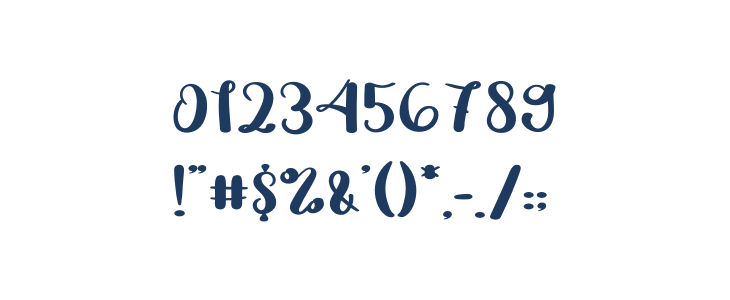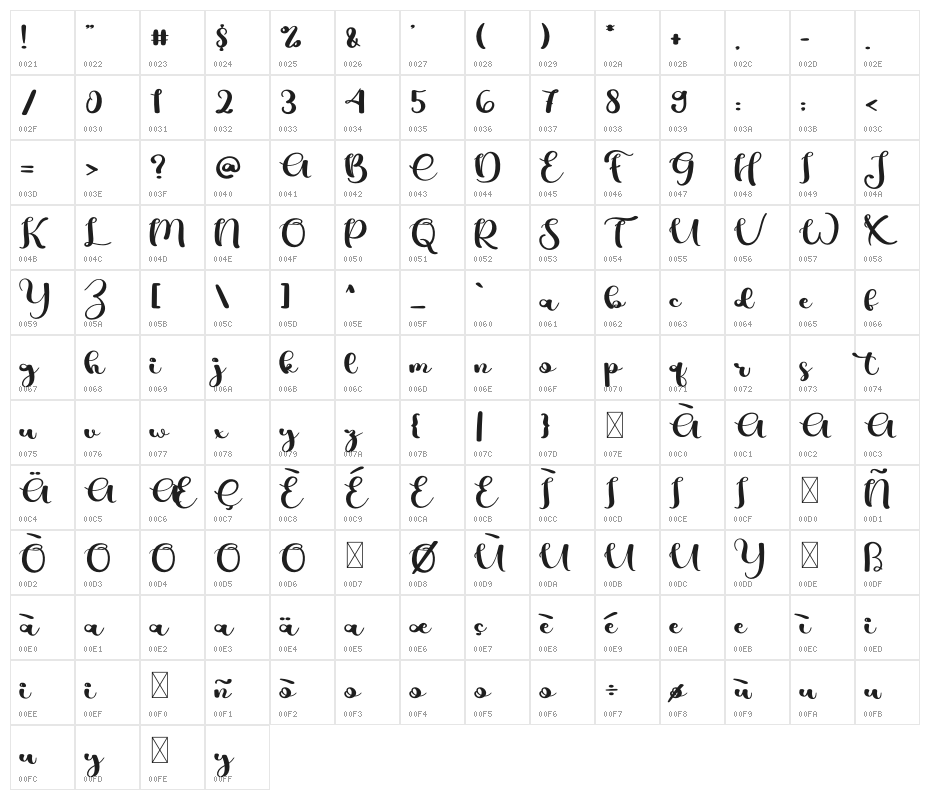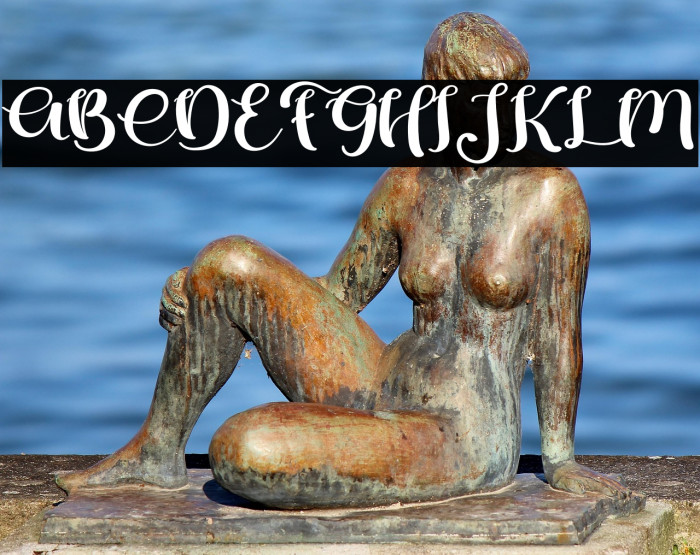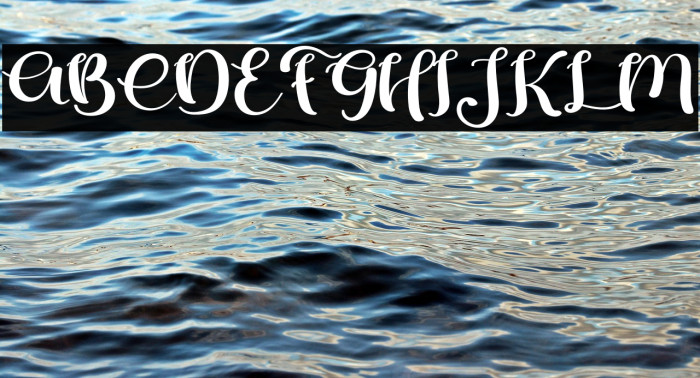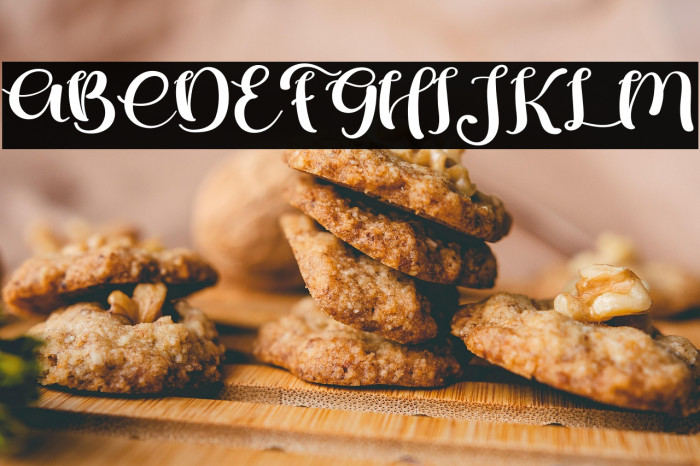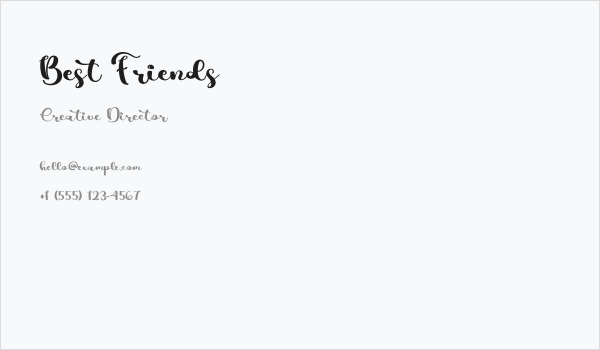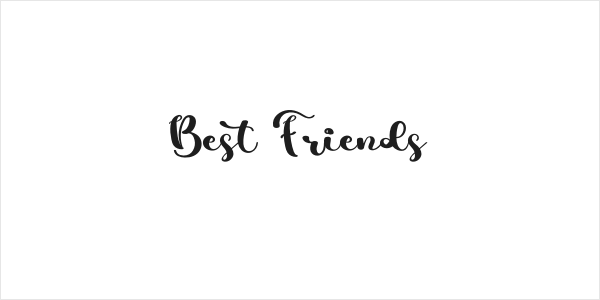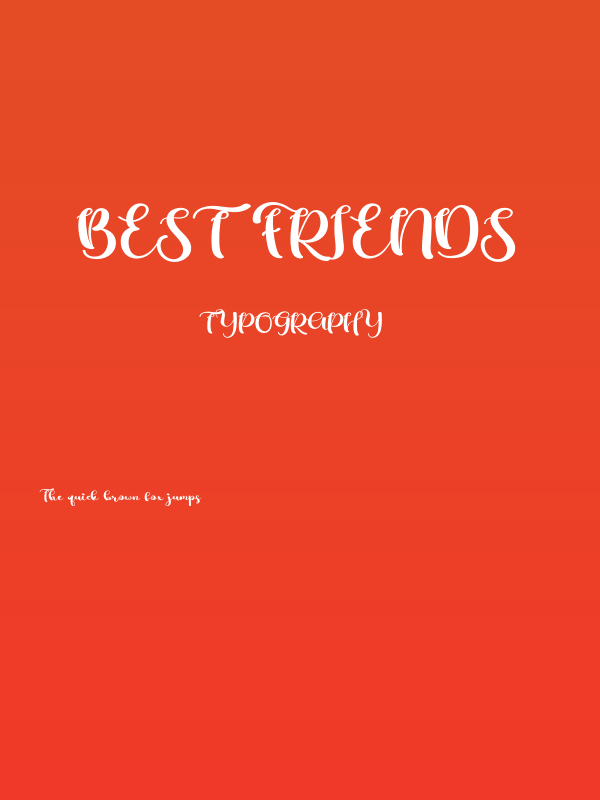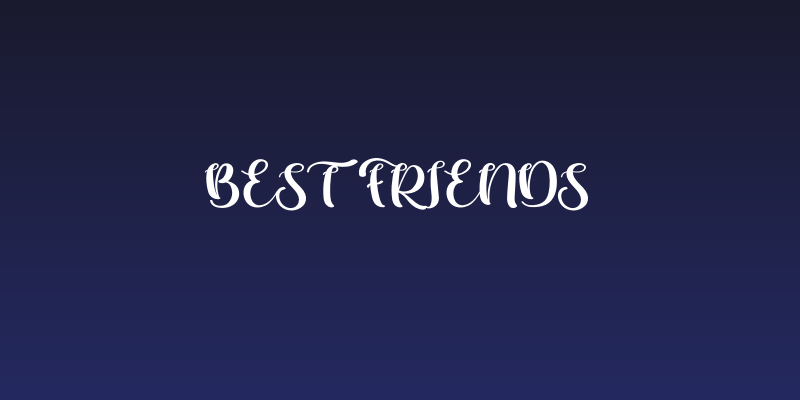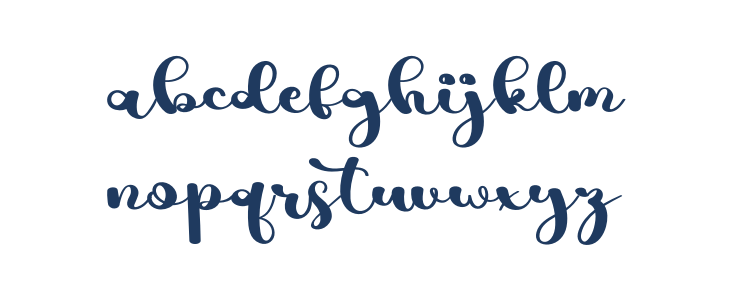
Best Friends Font
Best Friends Description
This font features a playful and whimsical script style, characterized by its flowing, interconnected letters and bold, rounded strokes. The uppercase letters exhibit a charming flair with loops and curves that add a sense of movement and energy. The lowercase letters maintain a consistent style, with some characters extending below the baseline, enhancing the font's dynamic appearance. Numbers and special characters are designed to match the overall aesthetic, ensuring a cohesive look across all text elements. The font's boldness and unique style make it stand out, making it ideal for creative and expressive design projects.
Use CaseLogos, Headlines, Invitations
Proposed ProjectsIdeal for greeting cards, invitations, branding, and social media graphics.